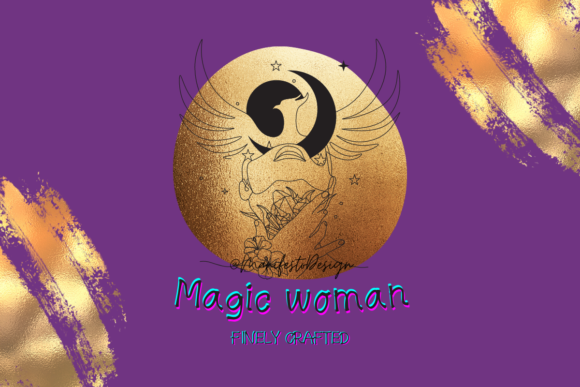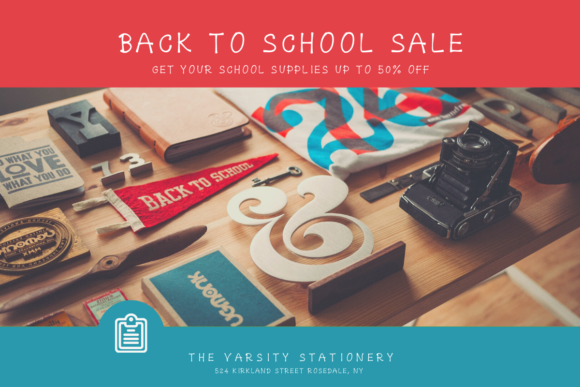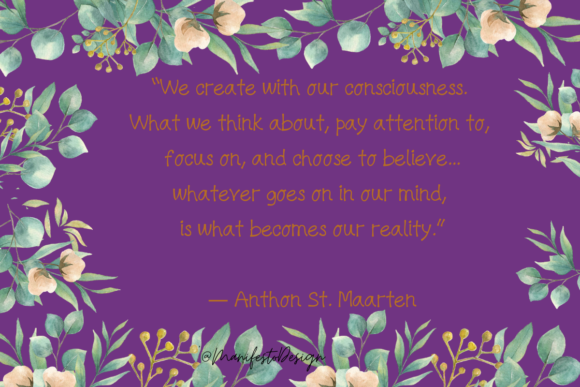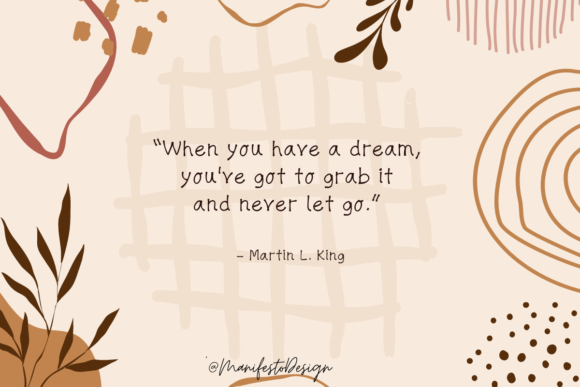
Magic Woman Font
About Magic Woman Font
Magic Woman is a charming hand-drawn font that can be used in all kinds of designs. You will love how authentic your designs feel when you use this font!
Magic Woman is a natural script font with a friendly personality. It can be used in product designs, product promotion, teaching materials, journal interiors, and printed quotes.
This font is easy to read, and its unique personality makes it fun and fresh. It is also expressive and has a “feel” that lets you express your thoughts more easily.